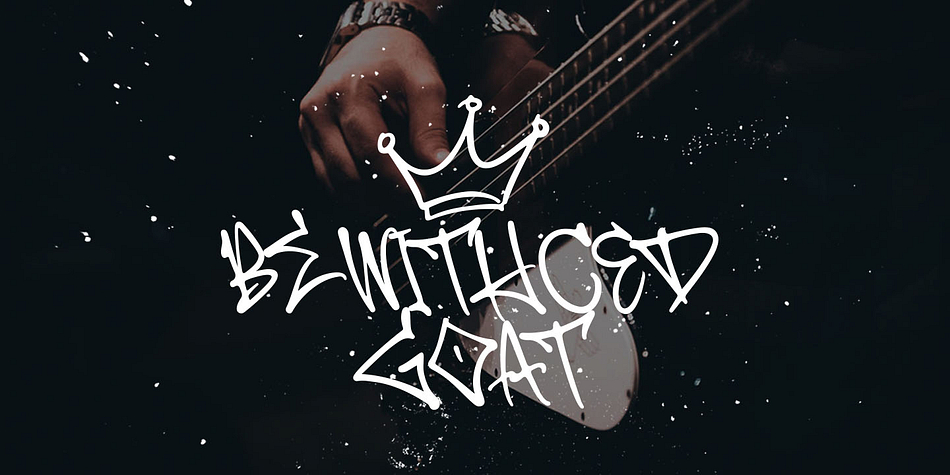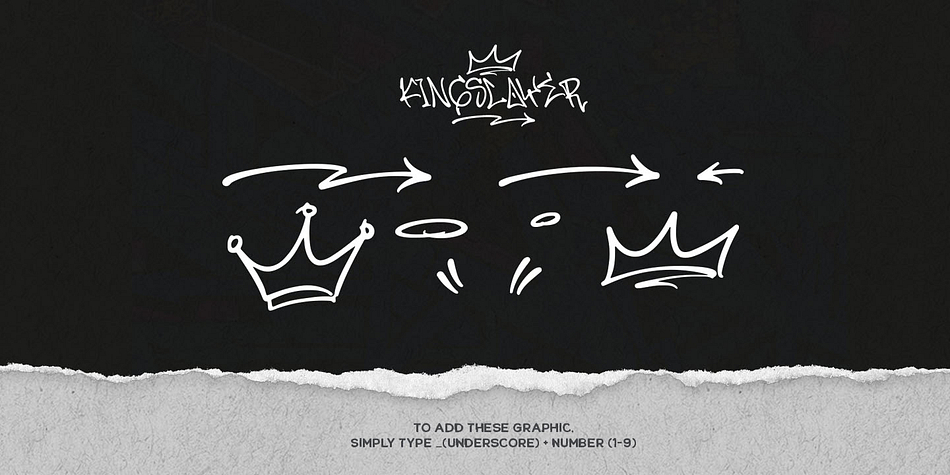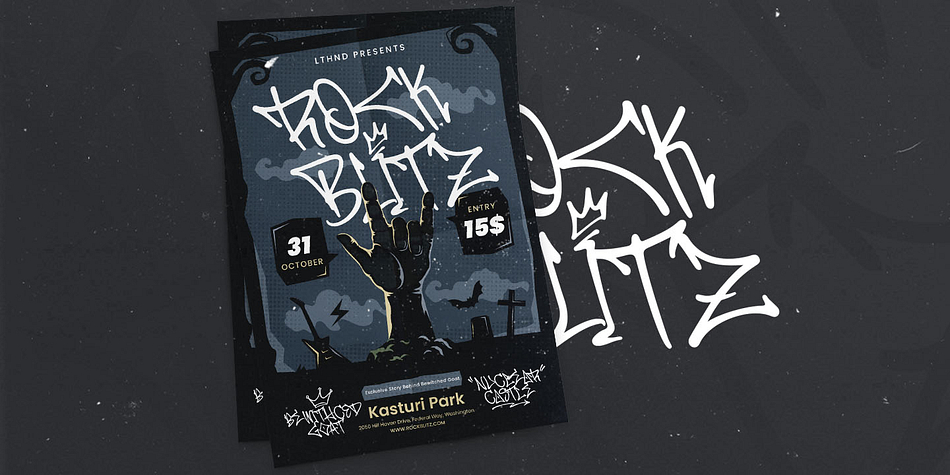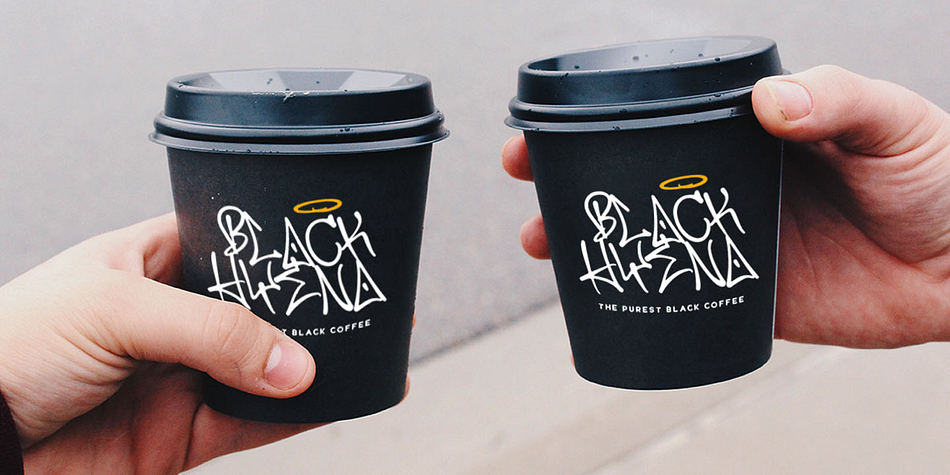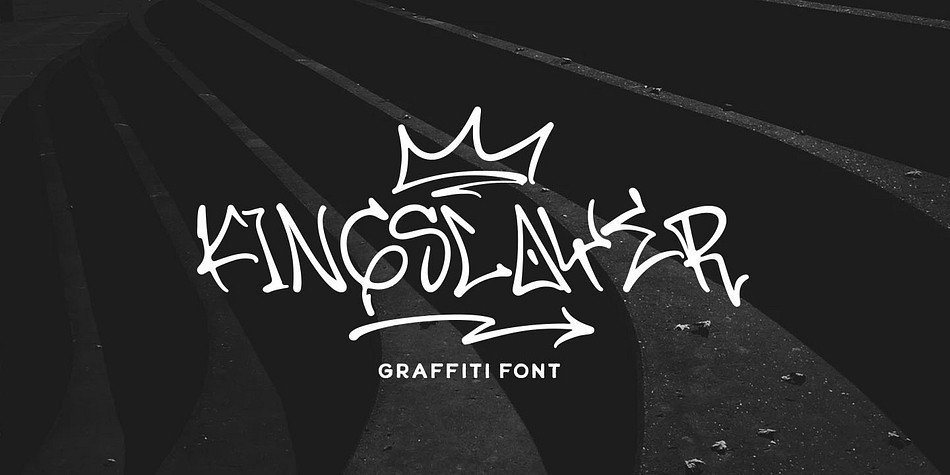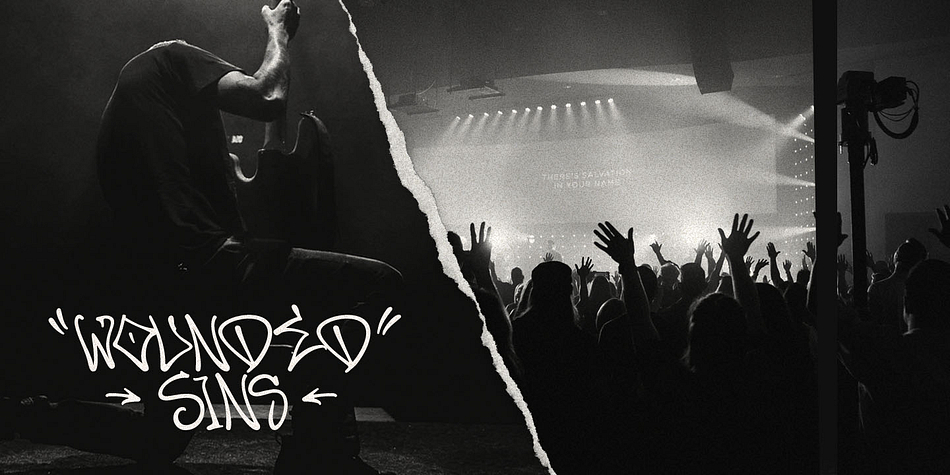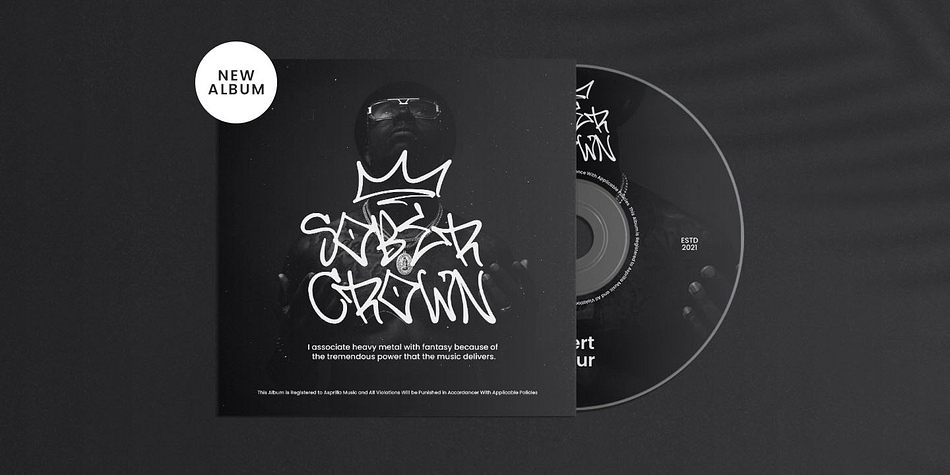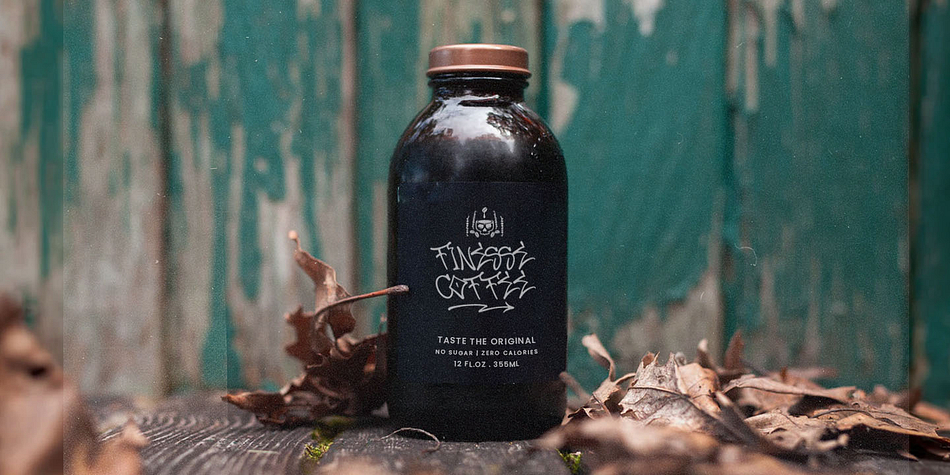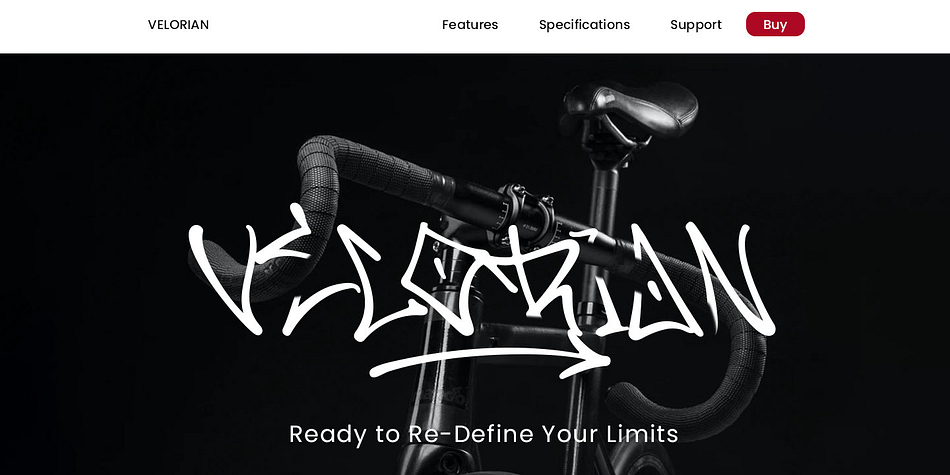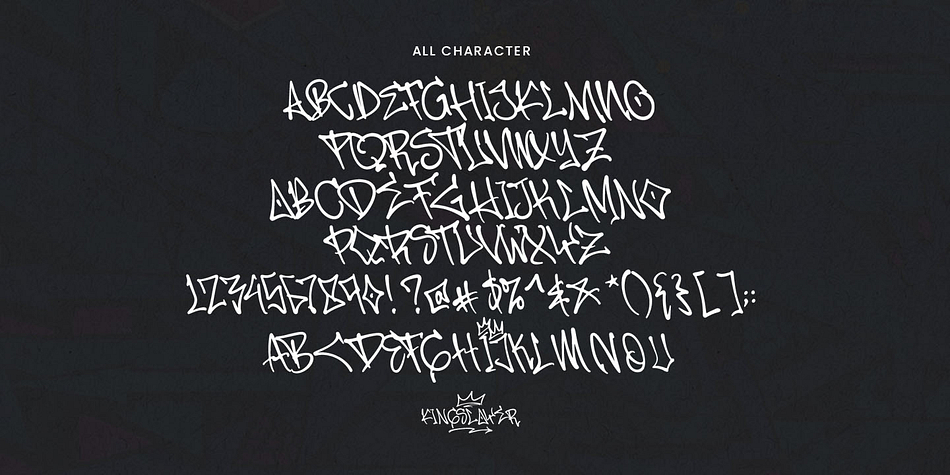
Kingslayer
Designed by Hendry Juanda, Kingslayer is a hand display font published by Letterhend Studio.
Introducing, Kingslayer. Kingslayer is a graffiti font inspired with unique graffiti letterform to that will make your design standout! Kingslayer will fit perfectly for branding design, packaging, headline,  graffiti poster, etc.